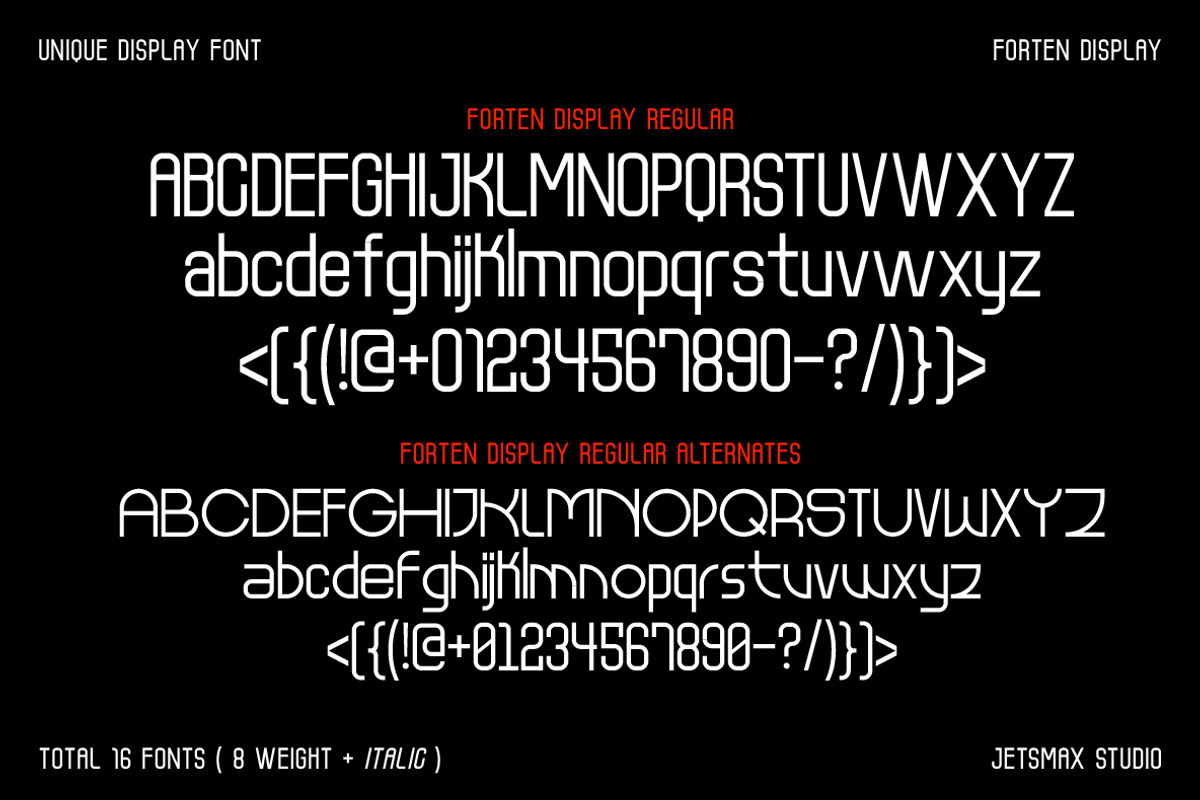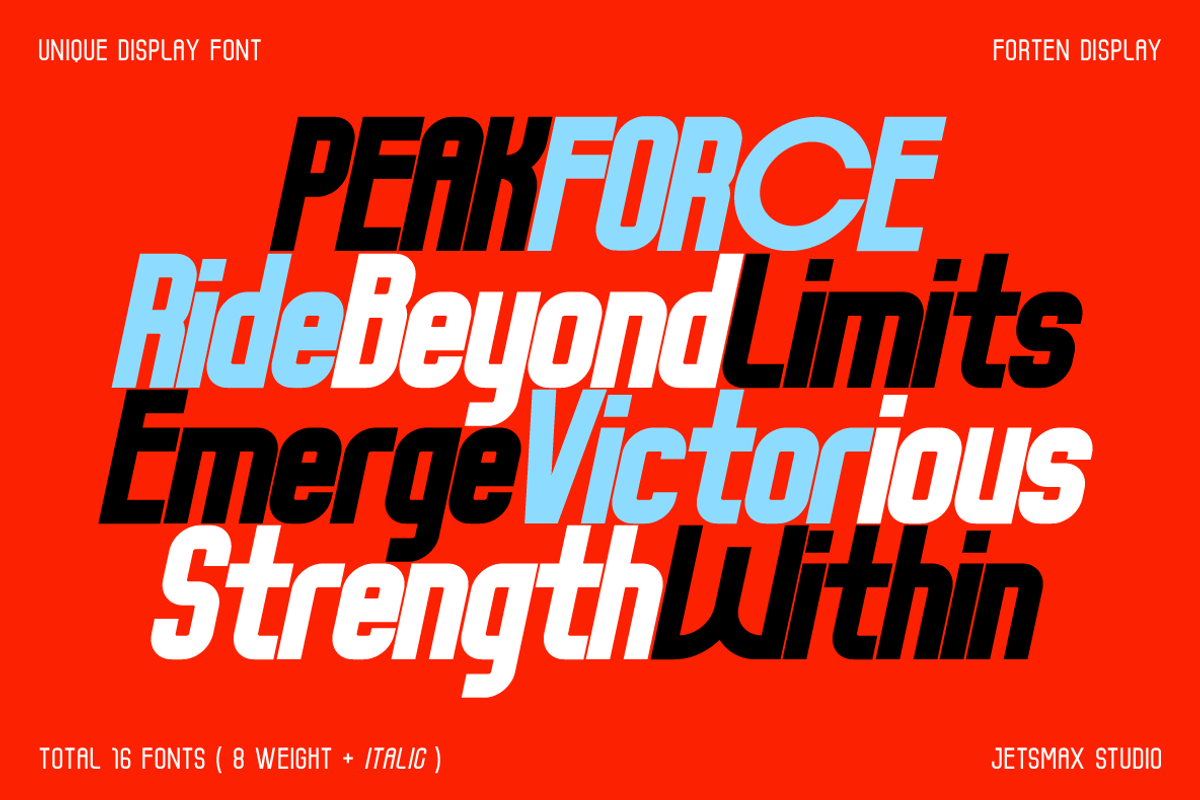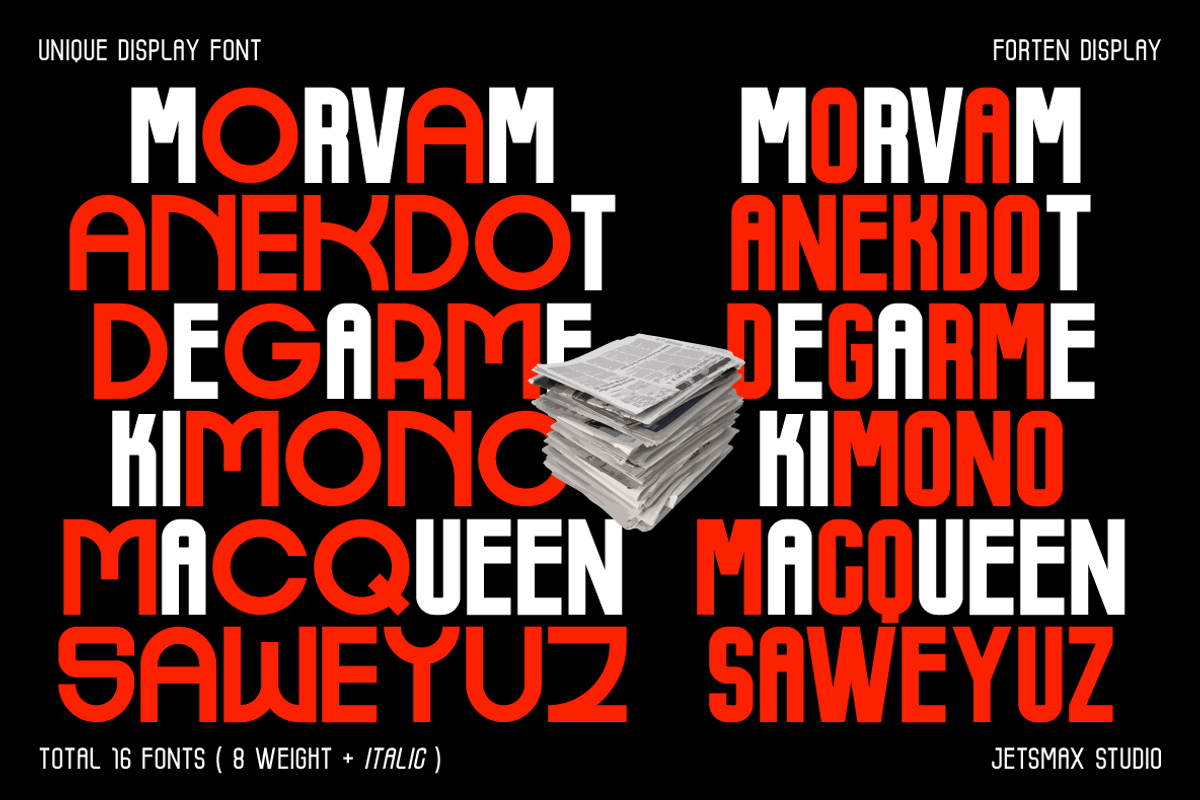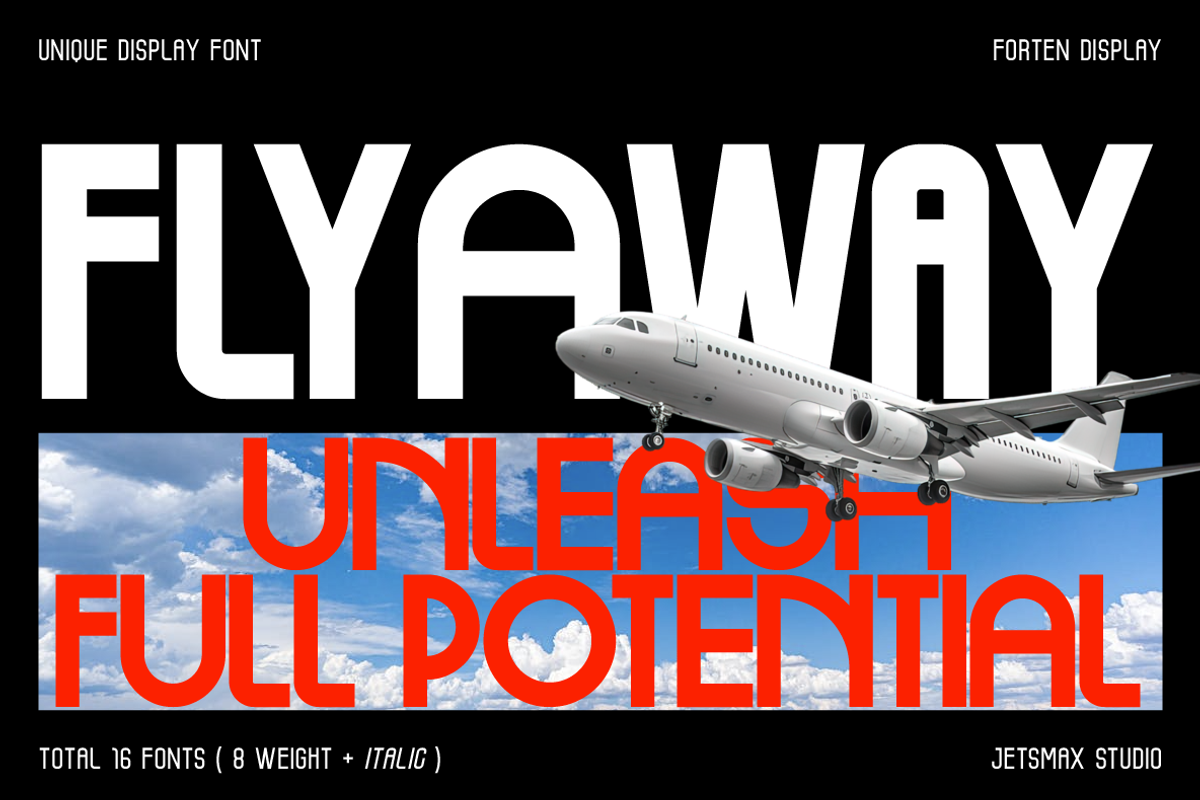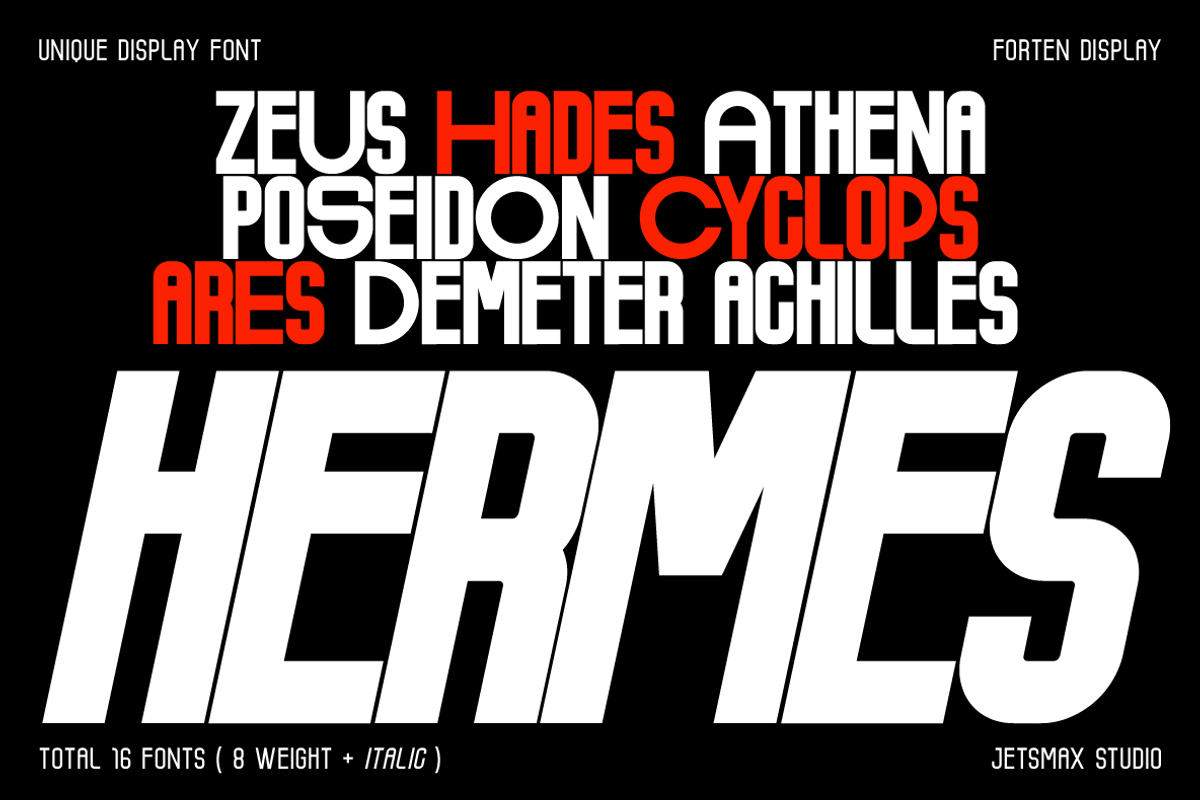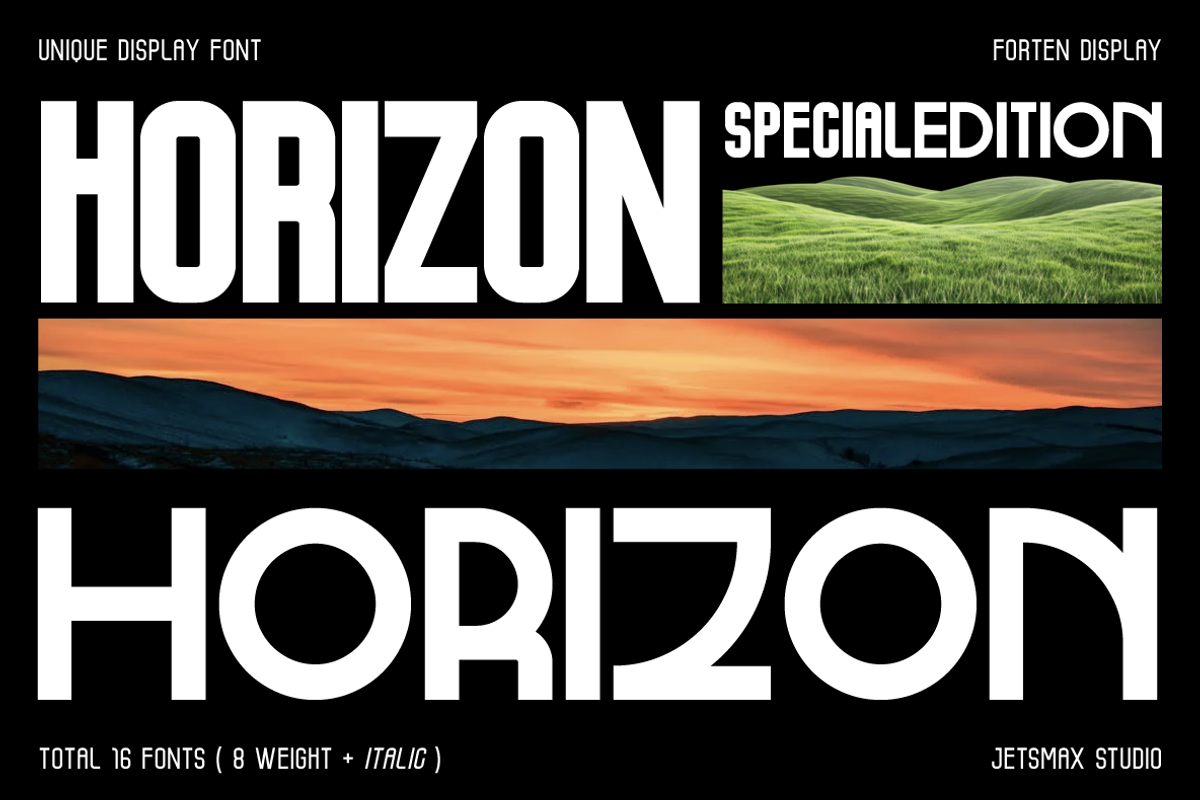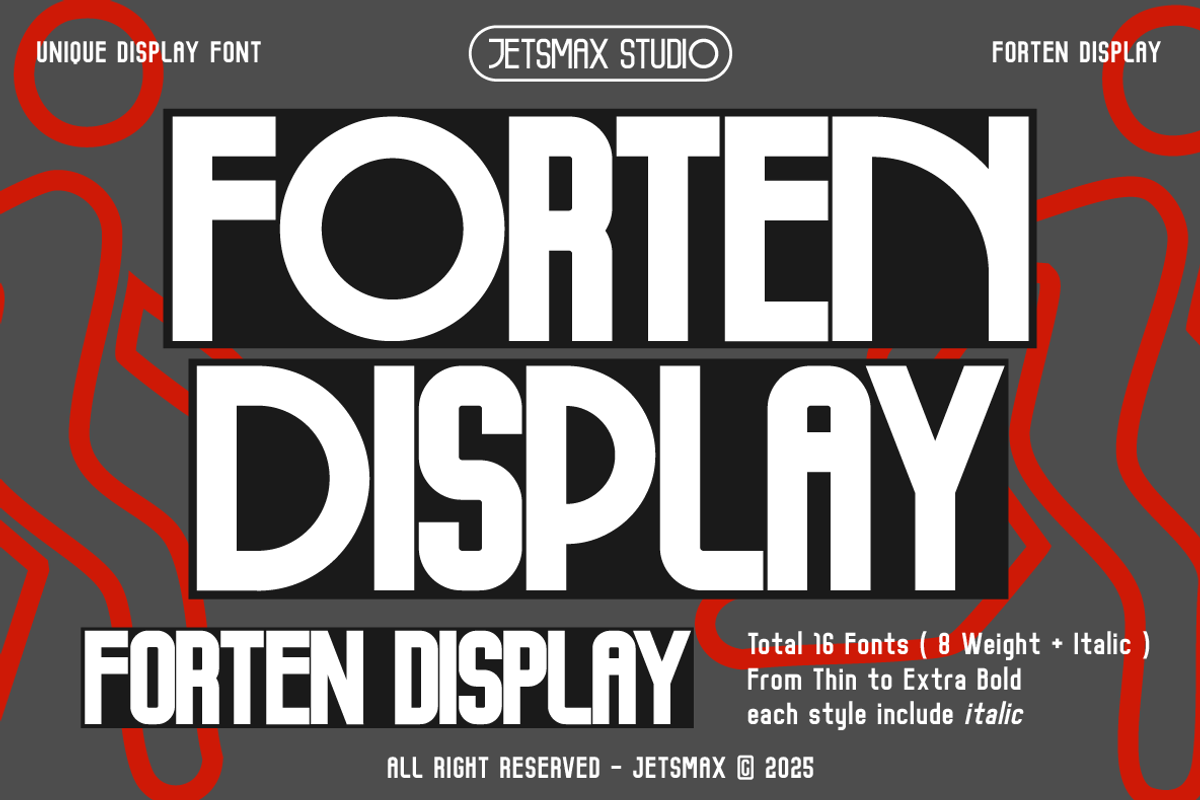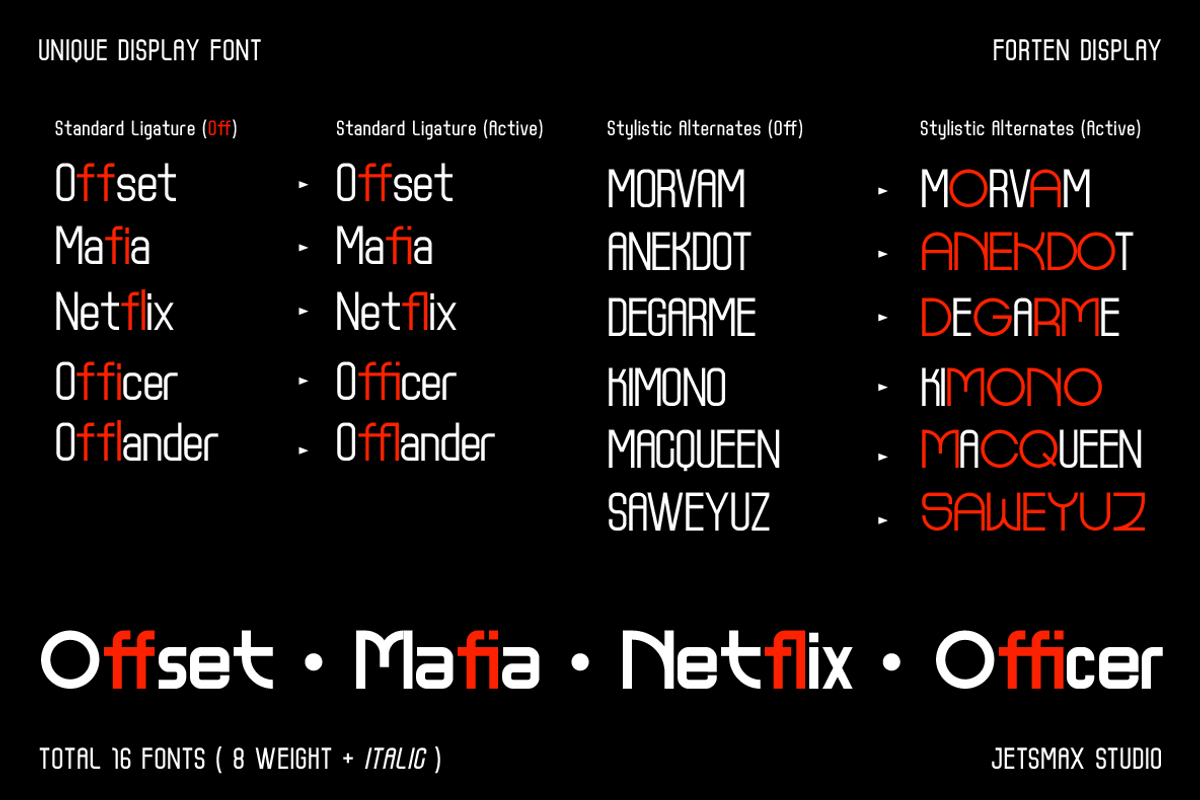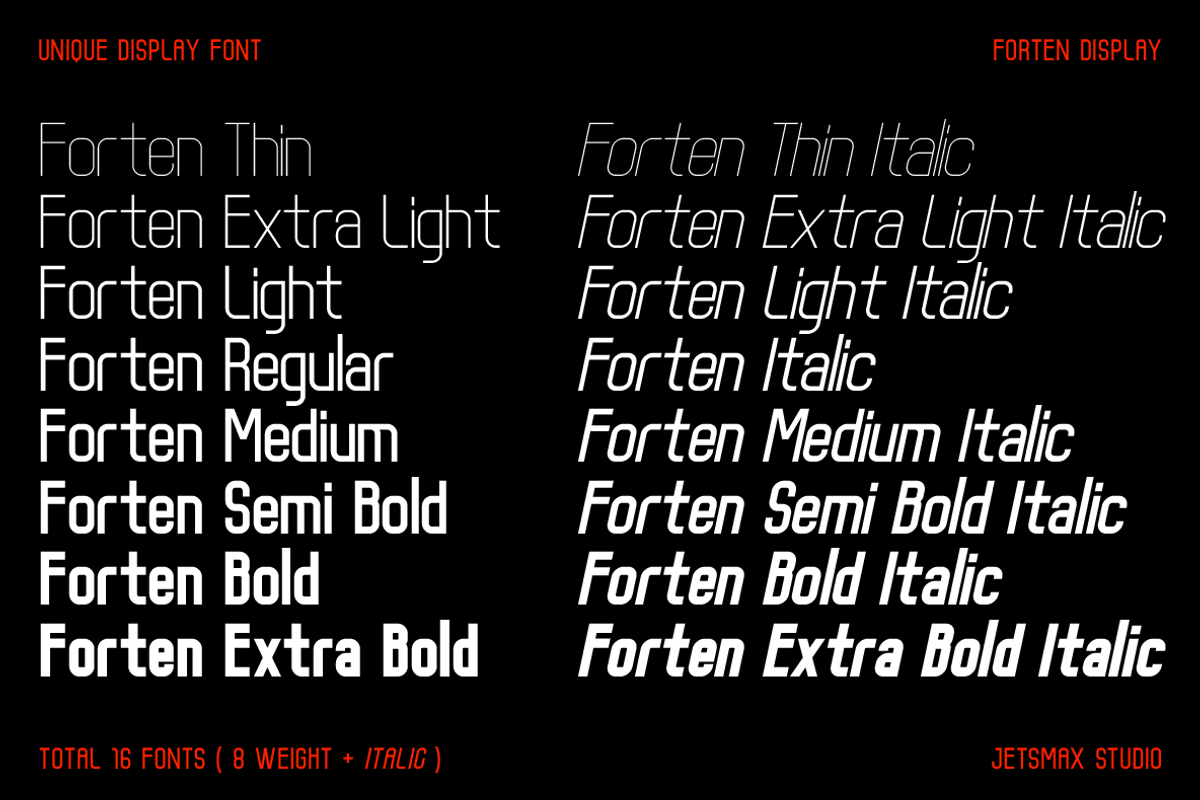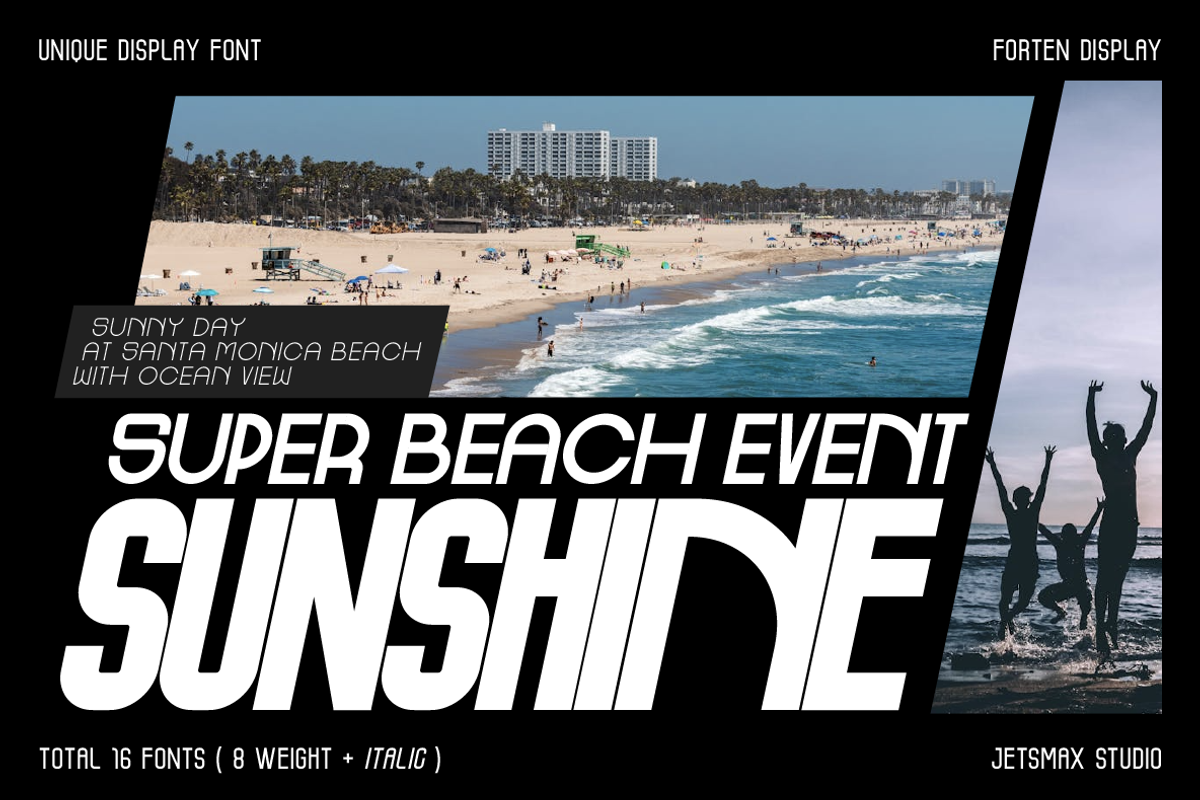
Forten Display
Forten Display – Boldly Refined Condensed Font Family
Forten Display is a distinctive and modern condensed typeface designed to make a strong visual impact. Featuring a complete set of 16 fonts — 8 weights from Thin to ExtraBold, each with a matching italic — this font family offers versatile expression and dynamic contrast for any design need.
Crafted with unique personality, Forten Display stands out with its clean, stylish structure, compact spacing, and alternative characters that invite creative exploration. Whether you’re designing logos, headlines, posters, or branding materials, Forten Display gives your work a bold, contemporary edge while maintaining elegance and readability.